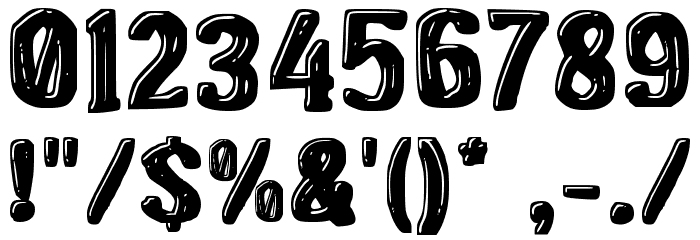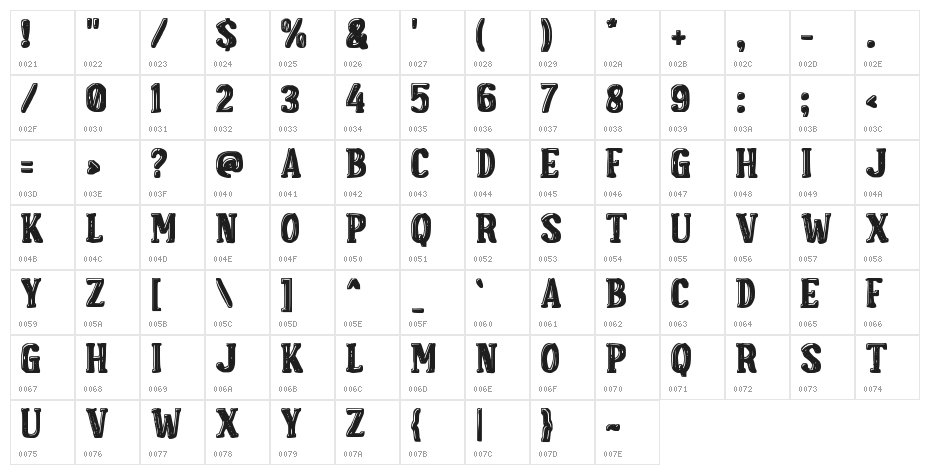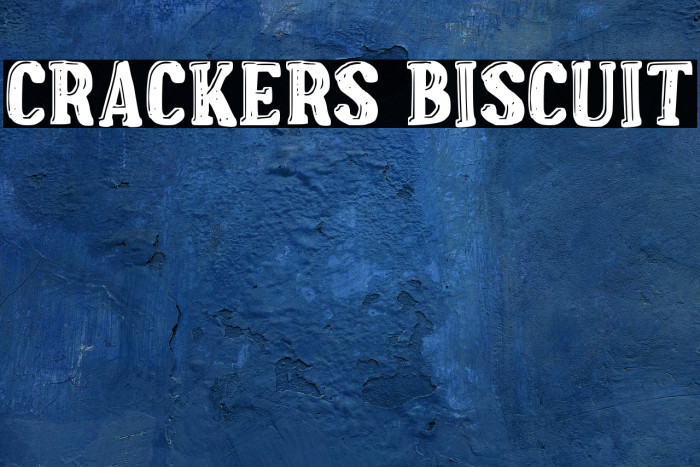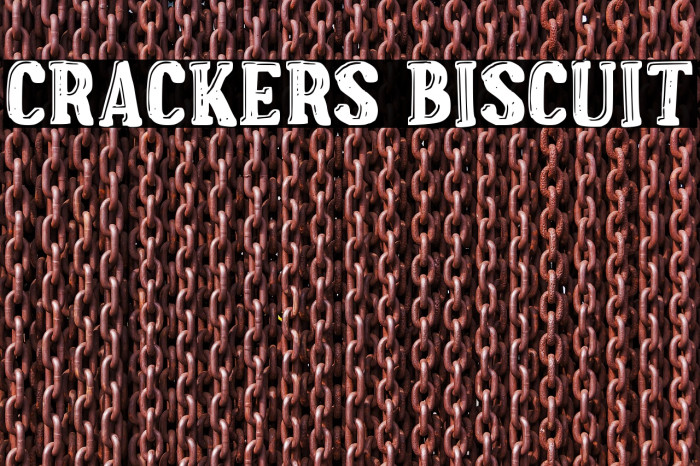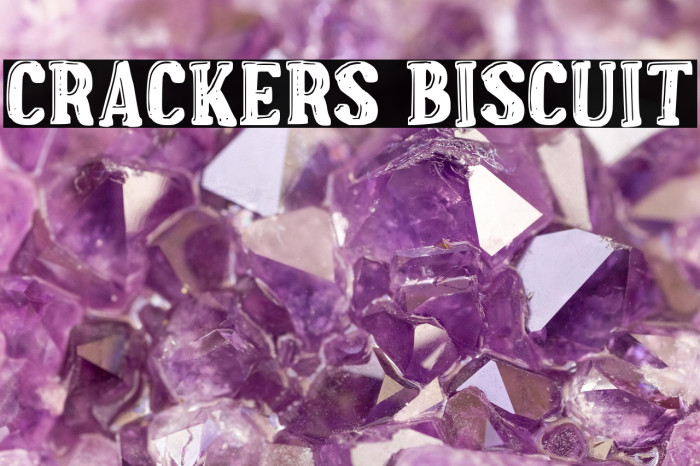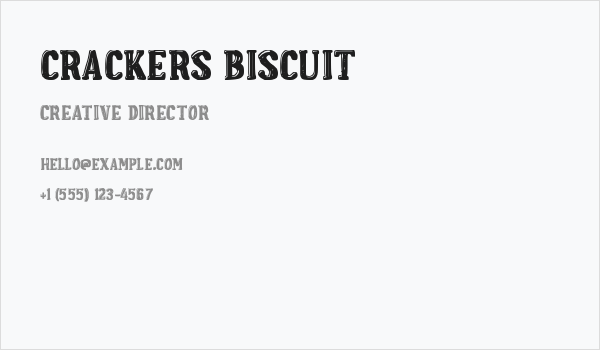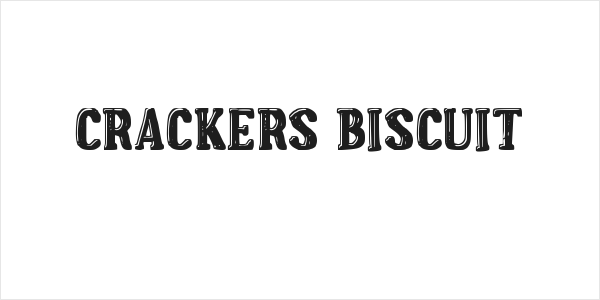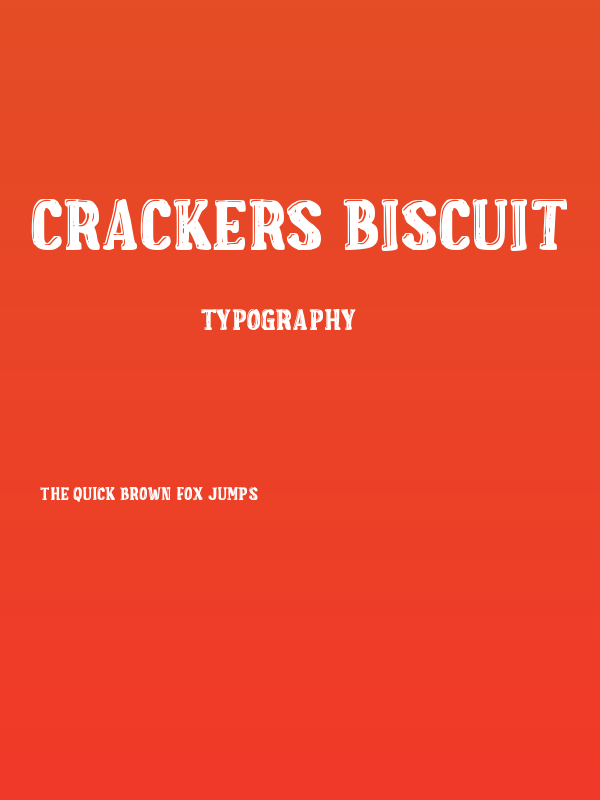
Crackers Biscuit Font
Crackers Biscuit Description
This font features a bold and playful design, characterized by its thick, uneven strokes and slightly distressed appearance. The letters have a hand-drawn quality, with irregular edges and a whimsical style that adds a sense of fun and creativity. The uppercase and lowercase letters maintain a consistent style, with a slightly condensed form that enhances readability. The numbers and special characters follow the same playful aesthetic, making them suitable for a variety of creative projects. The overall look is both bold and approachable, ideal for designs that aim to capture attention with a touch of personality.
| Overall Style | Playful, Creative, Hand-drawn |
| Proposed Projects | Ideal for children's book covers, playful branding, posters, and creative packaging. |